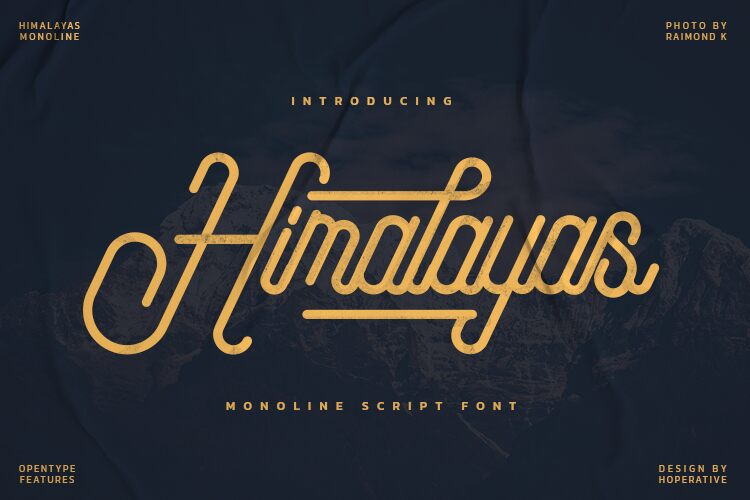
Himalayas, designed by Hoperative, brings an exquisitely personal touch to the realm of typography with its handwritten style and light font weight. This condensed script font echoes the artisanal charm of handcrafted lettering, offering a blend of elegance and intimacy that is rare in digital typefaces.
The fluidity of Himalayas' characters suggests a natural flow and continuity, reminiscent of the sweeping landscapes from which it draws its name. The delicate strokes and refined curves demonstrate a sophisticated aesthetic that can elevate the visual narrative of any creative endeavor.
From wedding invitations to branding materials, Himalayas promises versatility without losing its distinct character. It's well-suited for design projects aiming to convey warmth, authenticity, or a bespoke feel. The font's graceful presence works harmoniously within minimalist compositions but can also stand as a focal point when used thoughtfully.
Embrace the allure of handwriting with the understated beauty of Himalayas-a typeface that not only captures attention but also connects on an elemental level through its gracefully penned artistry.